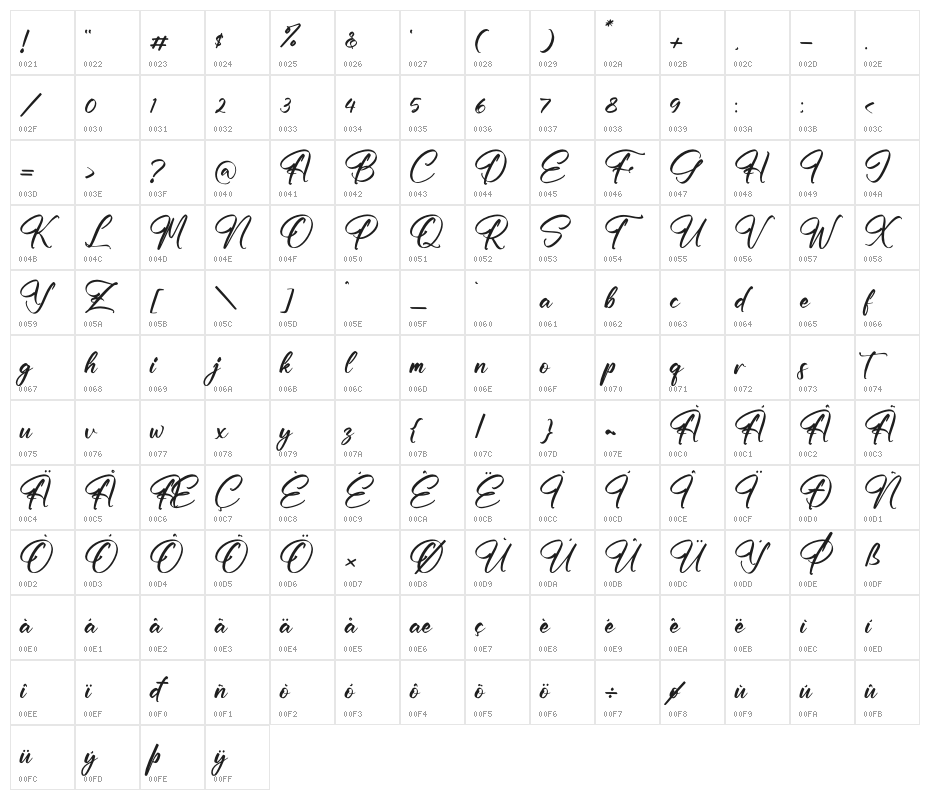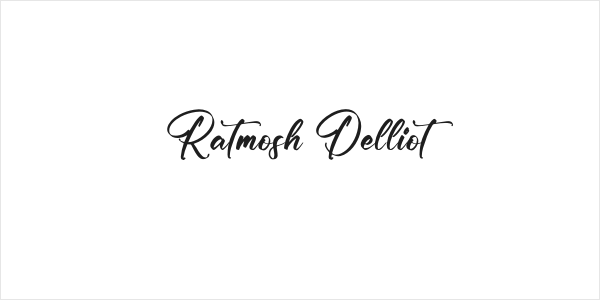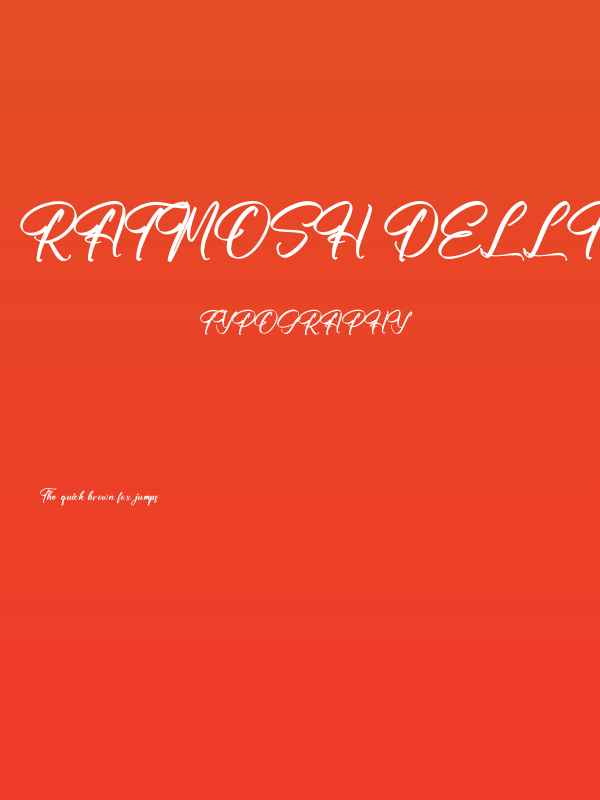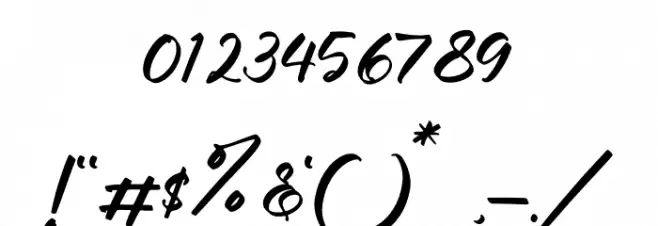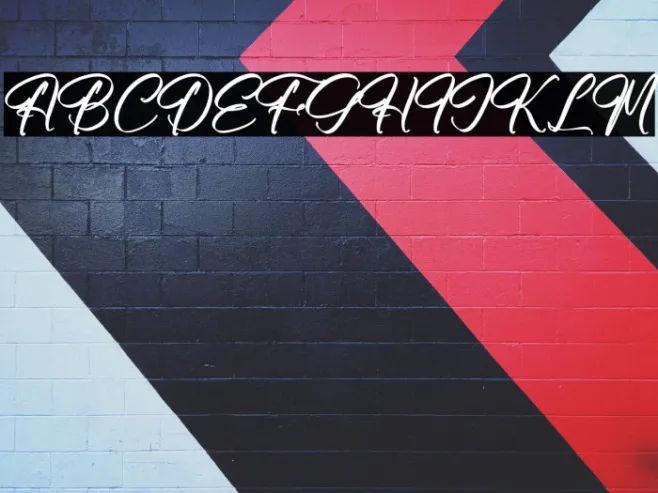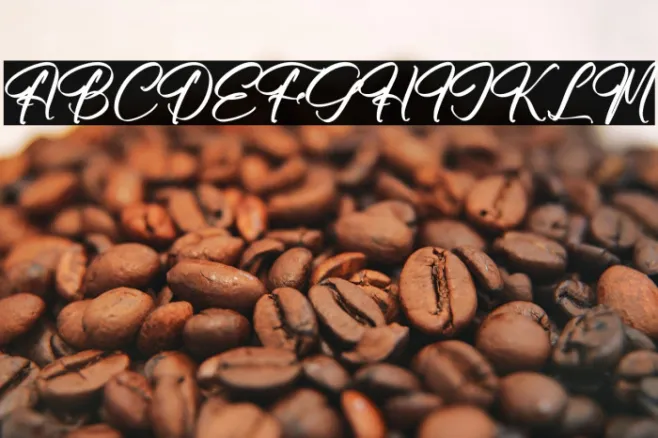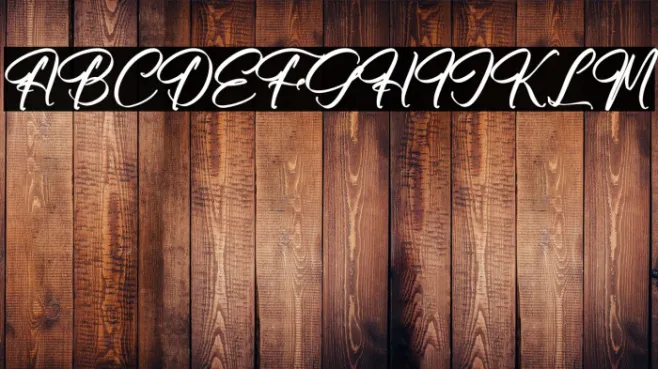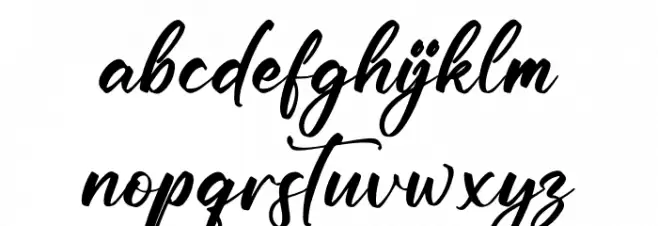
Ratmosh Delliot Font
| Gesamtstil | Elegant |
| Anwendungsfall | Logos, Invitations, Branding |
| Vorgeschlagene Projekte | Ideal for wedding invitations, luxury branding, personal signatures, and elegant stationery. |